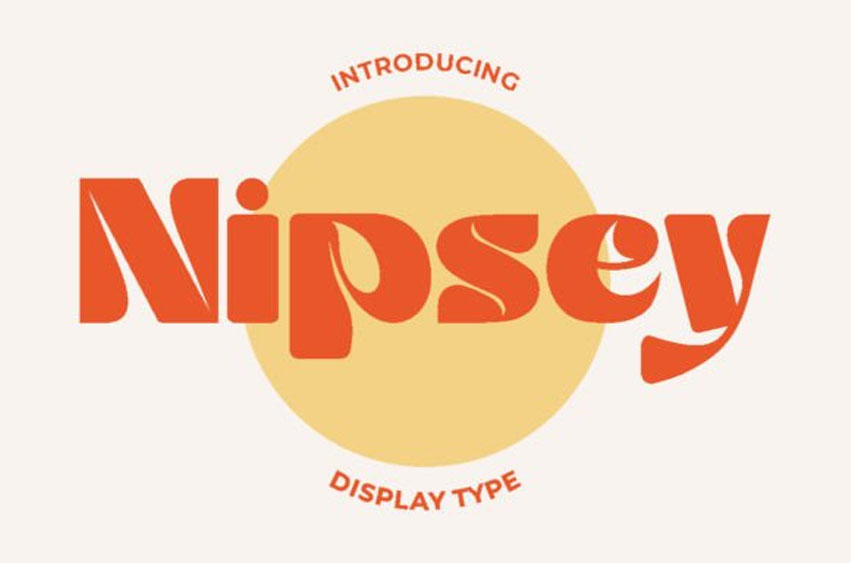
Nipsey Font
Nipsey Font is a modern display font with chunky characters inspired by vintage albums and posters from 1970s music bands.
It’s suitable for creative projects like albums, covers, posters, labels, t-shirts, quotes, logos, greeting cards, logotypes, and many more.